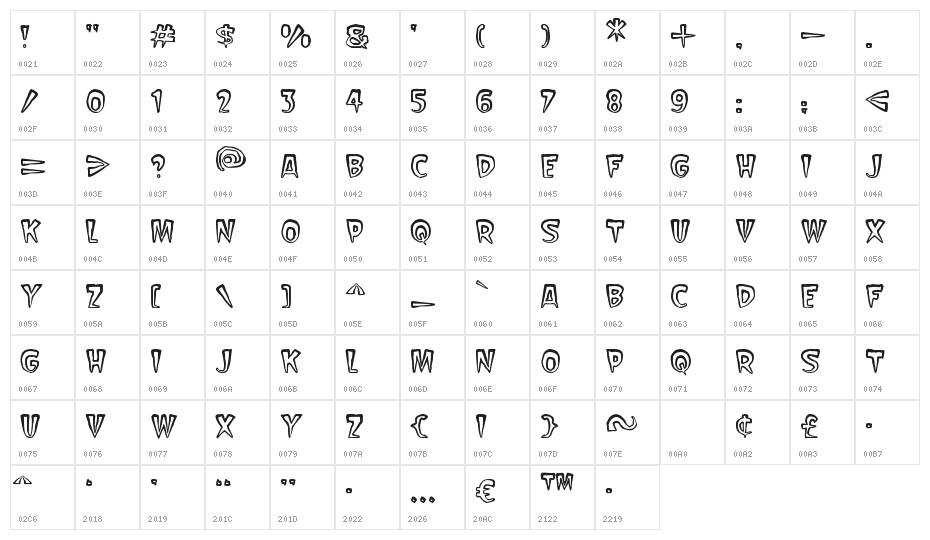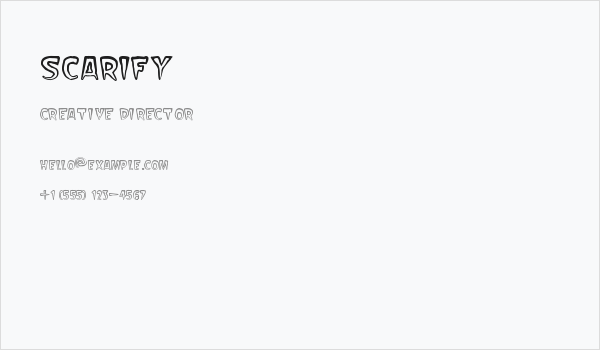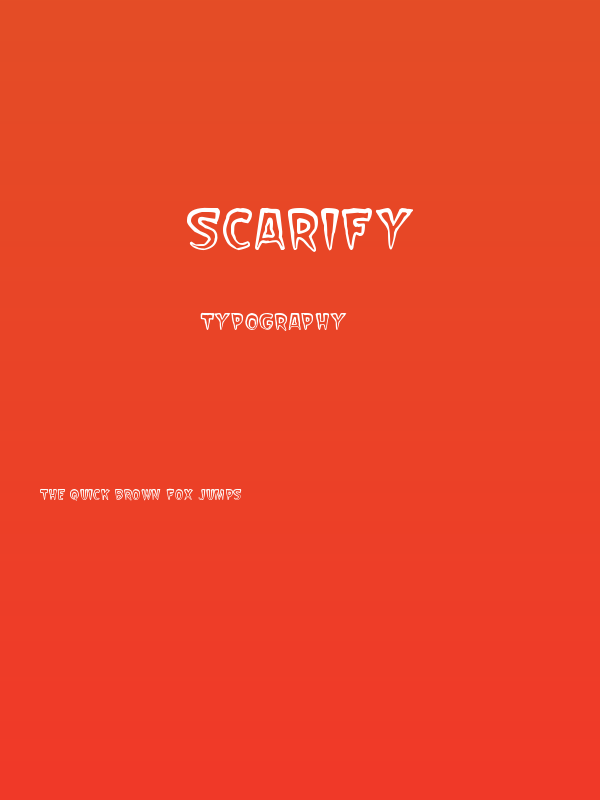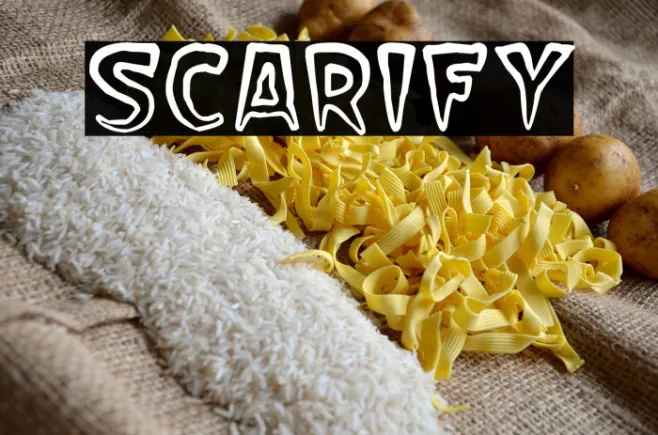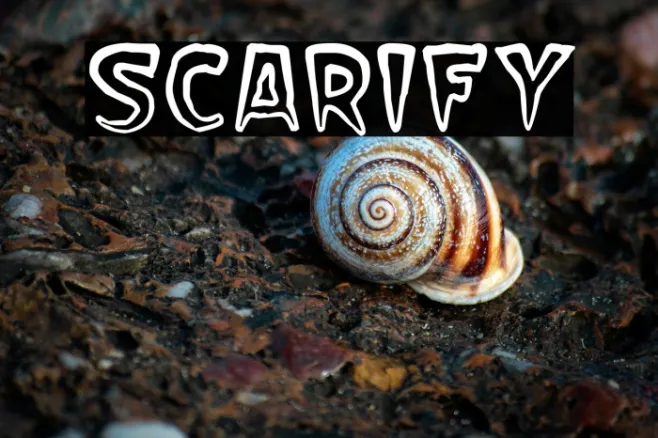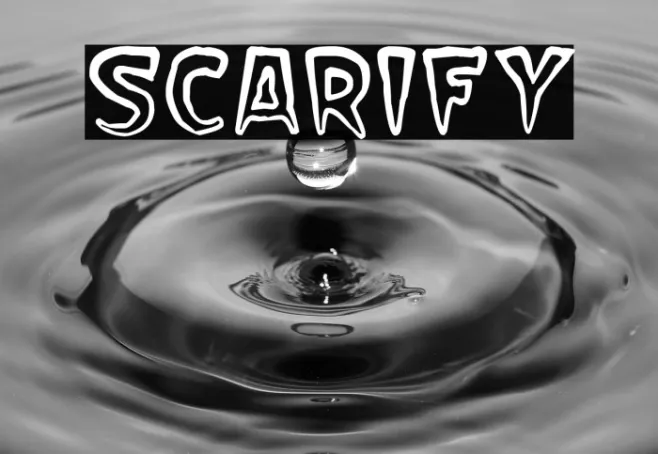
Scarify Font
Scarify Description
This font features a bold, hand-drawn style with a playful and slightly spooky aesthetic. The letters have irregular, jagged edges that give them a dynamic and energetic appearance. The uppercase and lowercase characters maintain a consistent style, with the uppercase letters being slightly larger and more pronounced. Numbers and special characters follow the same design principles, ensuring a cohesive look across all glyphs. The font's unique style makes it ideal for projects that require a touch of whimsy or a Halloween theme.
| Proposed Projects | Ideal for Halloween-themed designs, children's book covers, posters, and creative branding. |